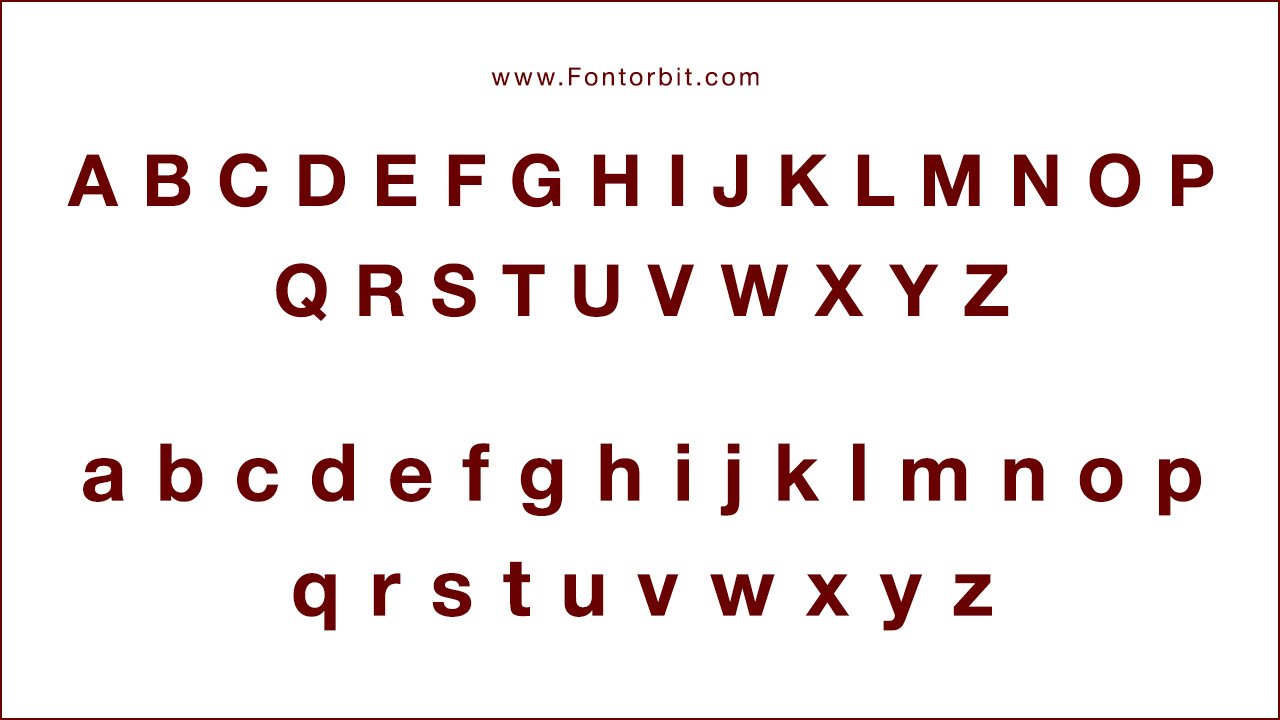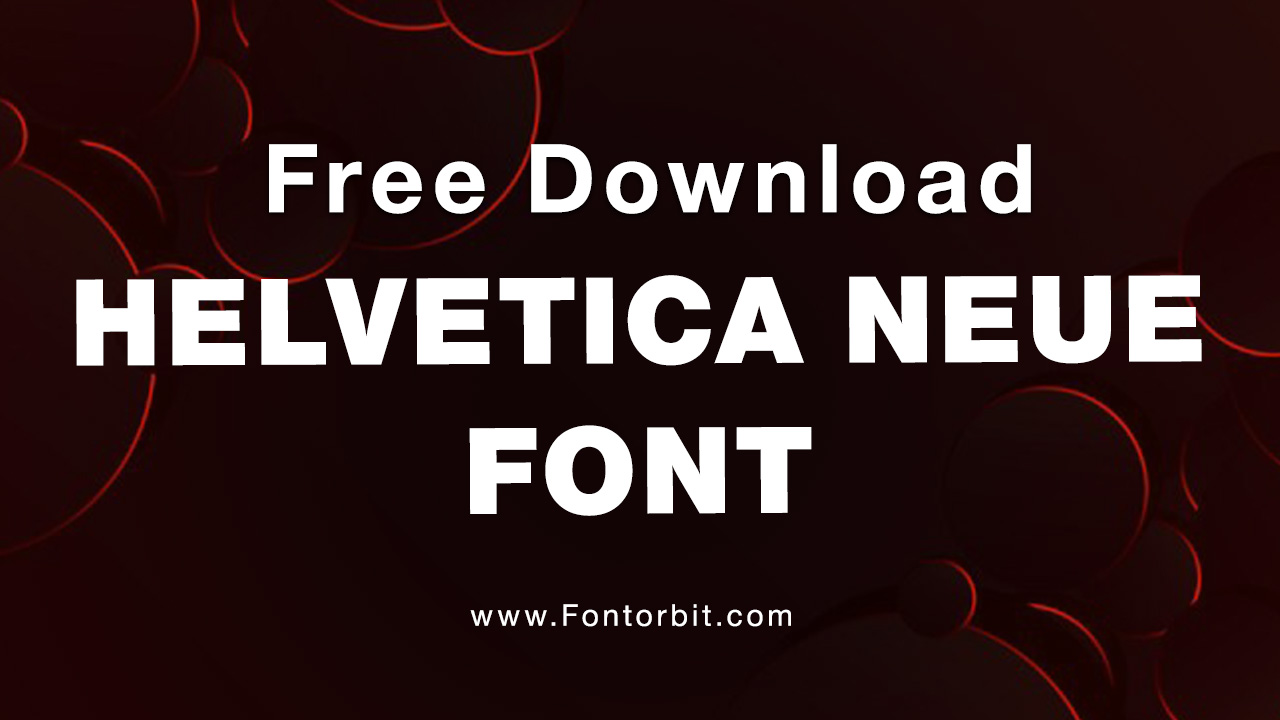
Helvetica, originally known as Neue Haas Grotesk, is a renowned sans-serif typeface created in 1957 by Swiss designers Max Miedinger and Eduard Hoffmann.
Inspired by the 19th-century typeface Akzidenz-Grotesk and other German and Swiss designs, Helvetica represents a neo-grotesque style. It became a defining element of the International Typographic Style, which emerged through the work of Swiss designers in the 1950s and 1960s, making it one of the most widely used typefaces of the 20th century.
Helvetica Neue Font Family Includes
- Helvetica Neue Regular
- Helvetica Neue Italic
- Helvetica Neue Ultra Light
- Helvetica Neue Ultra Light Italic
- Helvetica Neue Thin
- Helvetica Neue Thin Italic
- Helvetica Neue Light
- Helvetica Neue Light Italic
- Helvetica Neue Medium
- Helvetica Neue Medium Italic
- Helvetica Neue Bold
- Helvetica Neue Bold Italic
- Helvetica Neue Heavy
- Helvetica Neue Heavy Italic
- Helvetica Neue Black
- Helvetica Neue Black Italic
Where To Use Helvetica Neue
Helvetica Neue’s clean, modern aesthetic makes it suitable for a wide range of design applications, including:
- Branding: Ideal for logos and corporate identities, offering a sleek and professional appearance.
- Signage: Effective for clear and readable wayfinding, both indoors and outdoors.
- Publishing: Perfect for books, magazines, and brochures due to its readability and classic look.
- Digital Media: Enhances websites, apps, and user interfaces with its contemporary style.
- Subtitles: Ensures legibility and a clean presentation in video content.
Final Words
Helvetica Neue remains a staple in the world of typography, celebrated for its clean lines and modernity. Its expanded range of weights and styles allows designers to achieve a consistent, professional look across various mediums.
1.What Is Helvetica Neue?
Helvetica Neue is an updated version of the original Helvetica typeface, offering more consistent design elements and expanded weight options.
2.How Is Helvetica Neue Different From Helvetica?
Helvetica Neue has more uniform heights and widths across its characters and includes additional weights and styles, making it more versatile than the original Helvetica.